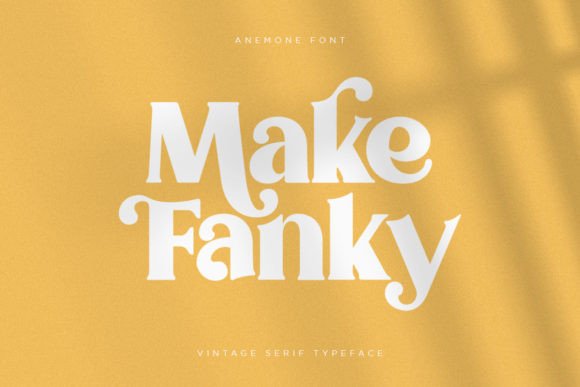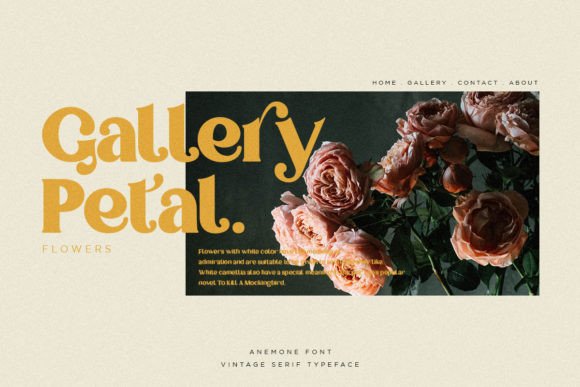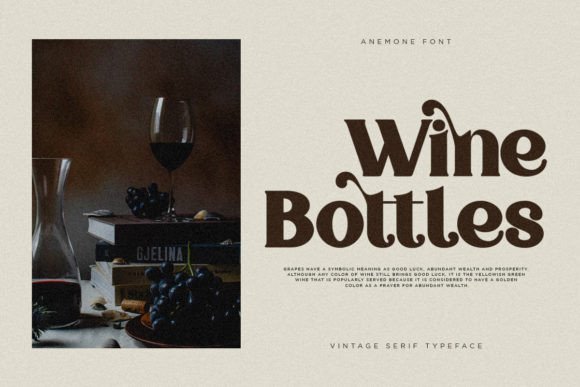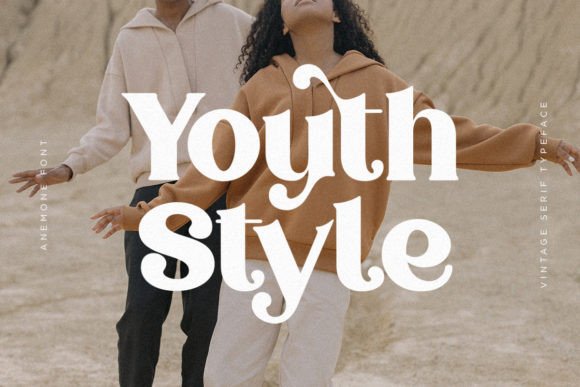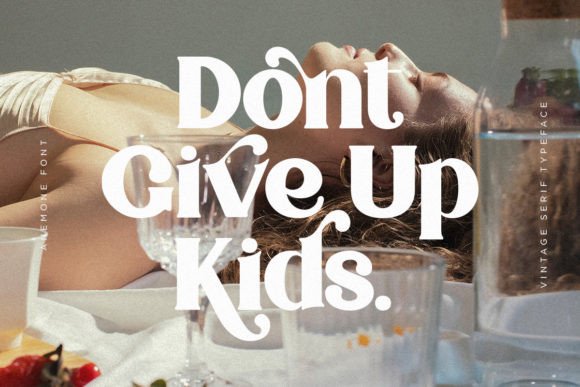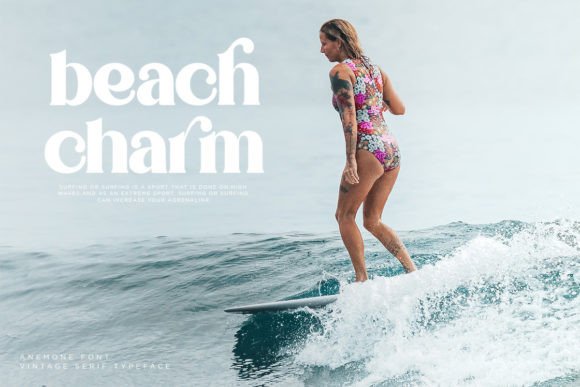
Introducing Anemone Font: Elevate Your Designs with Elegance
Are you on the lookout for a font that exudes sophistication and vintage charm? Look no further than Anemone Font, a beautifully crafted serif display font that’s sure to become a staple in your design arsenal. With its elegant lines, classic style, and versatility, Anemone is the perfect choice for designers and crafters seeking to add a touch of refinement to their projects.
The Story Behind Anemone Font
Anemone Font is a masterfully designed typeface that draws inspiration from the world of vintage typography. Its creator has poured their heart and soul into crafting a font that’s not only visually stunning but also highly functional. The result is a serif display font that’s perfect for headlines, titles, and any other design element where you want to make a statement.
What Makes Anemone Font Special?
So, what sets Anemone Font apart from other fonts in its class? Here are just a few features that make it a standout:
• Elegant, vintage-style design: Anemone Font boasts a classic, sophisticated look that’s reminiscent of traditional serif fonts.
• Highly versatile: Whether you’re working on a logo, brochure, or website, Anemone Font is the perfect choice for any project where you want to add a touch of elegance.
Design Possibilities with Anemone Font
Anemone Font is a true chameleon, capable of adapting to a wide range of design styles and applications. Here are just a few ideas to get you started:
• Logos and branding: Create a lasting impression with a custom logo that showcases your brand’s personality and style.
• Print materials: Add a touch of sophistication to your brochures, flyers, and business cards with Anemone Font.
• Web design: Use Anemone Font to create stunning website headers, titles, and other design elements that will leave a lasting impression on your visitors.
• Crafting and DIY projects: Anemone Font is also perfect for crafters and DIY enthusiasts who want to add a personal touch to their projects, such as handmade cards, scrapbooking, and more.
Tips for Getting the Most Out of Anemone Font
To truly make the most of Anemone Font, here are a few tips to keep in mind:
• Experiment with different sizes and colors: Anemone Font looks great in a variety of sizes and colors, so don’t be afraid to get creative and try out different combinations.
• Pair it with other fonts: Anemone Font pairs beautifully with other serif and sans-serif fonts, making it easy to create visually interesting and dynamic designs.
• Use it consistently: To create a cohesive look, use Anemone Font consistently throughout your design, whether it’s a logo, brochure, or website.
In conclusion, Anemone Font is a truly exceptional serif display font that’s sure to become a favorite among designers and crafters. With its elegant, vintage-style design, PUA encoding, and versatility, it’s the perfect choice for any project where you want to add a touch of sophistication and refinement. So why wait? Download Anemone Font today and start elevating your designs to new heights!